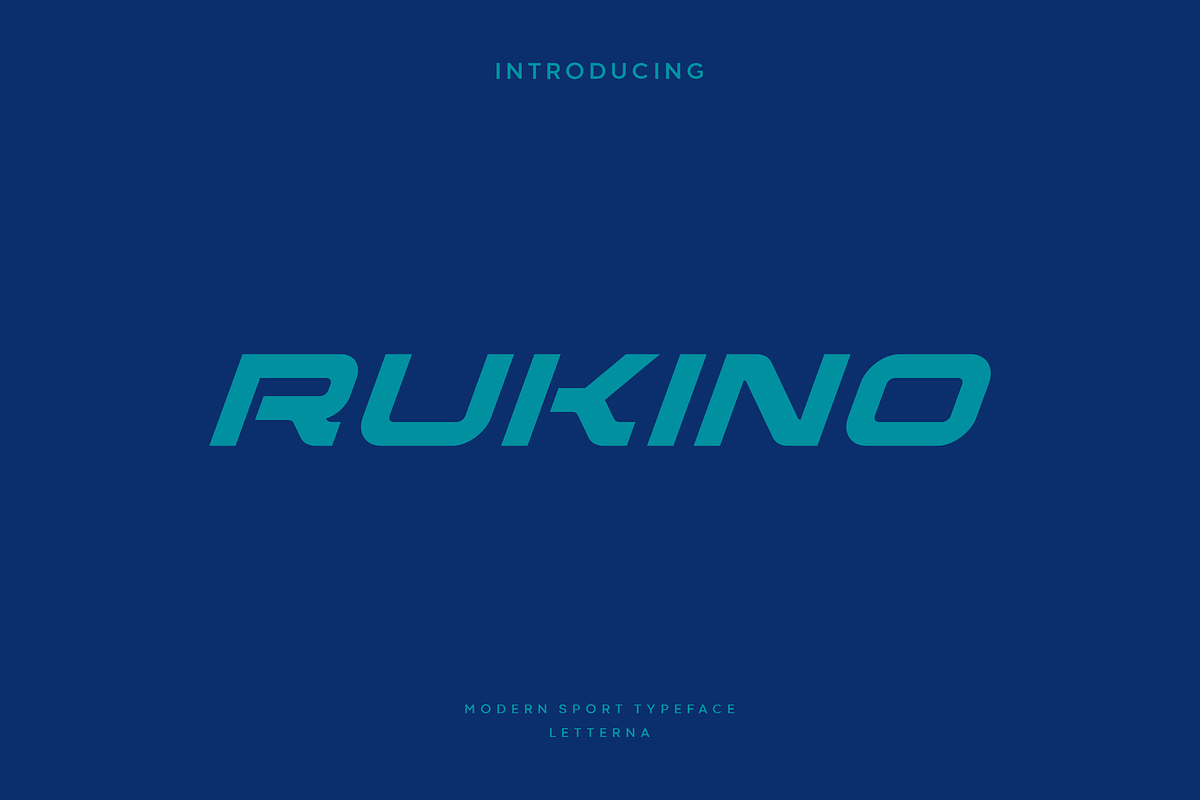
Rukino - Modern Display Typeface Free Download is a sleek and stylish typeface designed to make a statement. Perfect for bold headlines, posters, branding, and digital content, this modern display font combines elegance and readability for a striking visual impact.
With its clean lines, sharp edges, and contemporary design, Rukino - Modern Display Typeface Free Download brings a futuristic and professional touch to your typography. Whether you're designing for a cutting-edge tech brand, a fashion label, or a modern website, this font provides the flexibility and strength needed to captivate your audience. Try it out in your next creative project—then upgrade to a commercial license when you're ready to take your work to the next level.